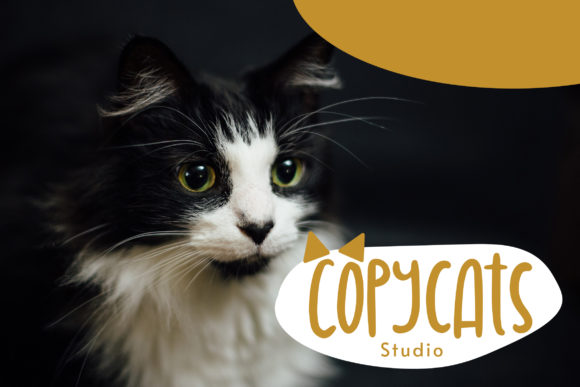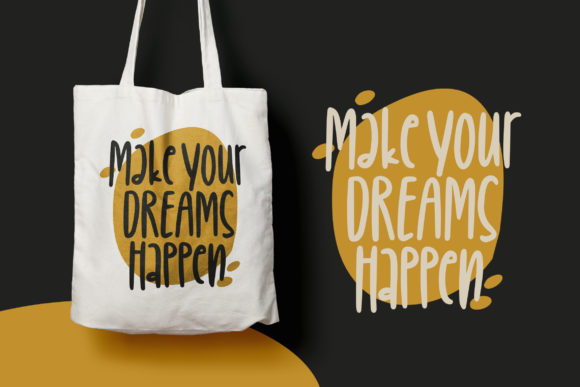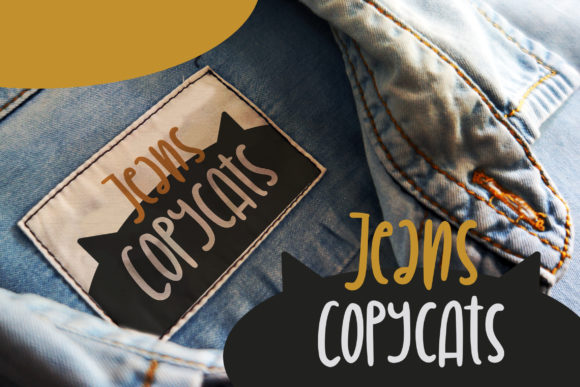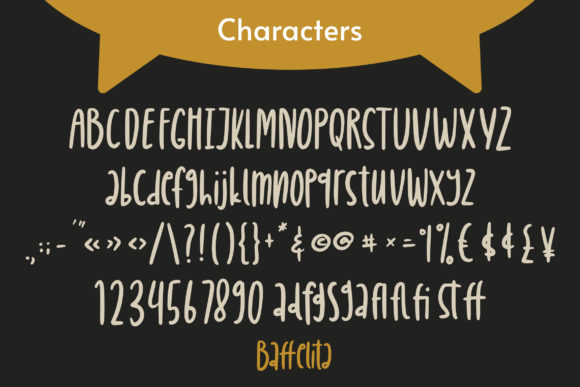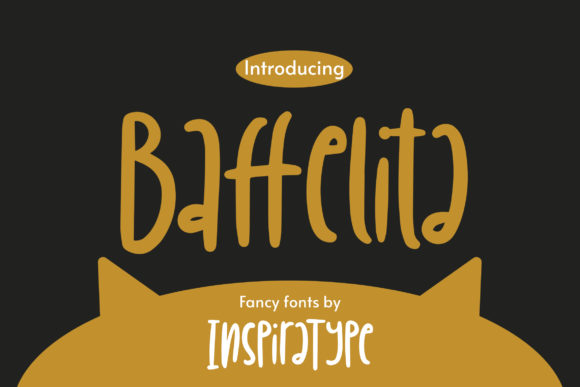
Baffelita Font: The Fun and Simple Lettered Display Font for Your Creative Projects
Are you a designer or crafter looking for a font that can add a touch of friendliness and casualness to your creations? Look no further than Baffelita Font! This fun and simple lettered display font is perfect for a wide range of projects, from branding and advertising to crafting and DIY tutorials. In this article, we’ll take a closer look at Baffelita Font and explore its features, benefits, and uses.
What is Baffelita Font?
Baffelita Font is a lettered display font that is designed to be friendly and casual. It features simple, clean lines and a playful feel that makes it perfect for adding a touch of personality to your projects. Whether you’re creating a logo, a poster, or a social media graphic, Baffelita Font is a great choice.
Key Features of Baffelita Font
- Fun and playful feel: Baffelita Font has a lighthearted and carefree feel that’s perfect for projects that require a bit of whimsy.
- Simple and clean lines: The font features simple, clean lines that make it easy to read and versatile.
- Lettered display font: Baffelita Font is designed specifically for display purposes, making it perfect for headlines, titles, and other prominent text.
- Friendly and casual: The font has a warm and approachable feel that’s perfect for projects that require a bit of personality.
Benefits of Using Baffelita Font
So why choose Baffelita Font for your projects? Here are just a few benefits of using this fun and simple lettered display font:
- Adds personality to your projects: Baffelita Font is a great way to add a bit of whimsy and personality to your projects.
- Easy to read: The font’s simple, clean lines make it easy to read, even at small sizes.
- Versatile: Baffelita Font is perfect for a wide range of projects, from branding and advertising to crafting and DIY tutorials.
- Time-saving: With Baffelita Font, you can create professional-looking projects in no time.
Uses for Baffelita Font
Baffelita Font is a versatile font that can be used for a wide range of projects, including:
- Branding and advertising: Use Baffelita Font to create eye-catching logos, posters, and social media graphics.
- Crafting and DIY tutorials: Add a touch of personality to your crafting and DIY tutorials with Baffelita Font.
- Signs and displays: Use Baffelita Font to create eye-catching signs and displays for your business or event.
- Social media graphics: Add a bit of whimsy to your social media graphics with Baffelita Font.
Tips for Using Baffelita Font
Here are a few tips for using Baffelita Font in your projects:
- Use it for headlines and titles: Baffelita Font is perfect for headlines and titles, where you want to make a big impact.
- Experiment with different colors: Try out different colors and color combinations to add a bit of personality to your projects.
- Pair it with other fonts: Baffelita Font pairs well with a wide range of other fonts, so feel free to experiment with different combinations.
Baffelita Font is a fun and simple lettered display font that’s perfect for designers and crafters who want to add a bit of personality to their projects. With its friendly and casual feel, simple and clean lines, and versatility, Baffelita Font is a great choice for a wide range of projects. Whether you’re creating a logo, a poster, or a social media graphic, Baffelita Font is sure to become a top choice.